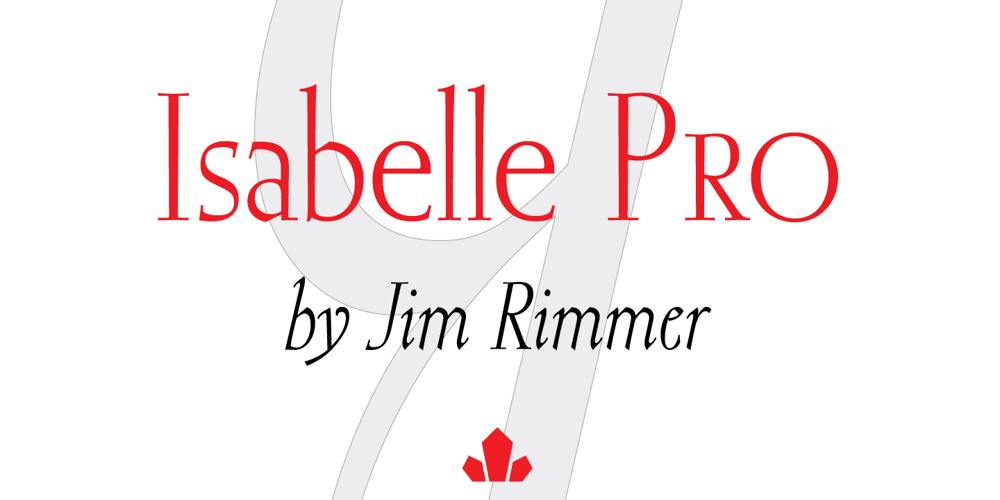
Isabelle Pro Font Family was designed by Jim Rimmer and published by Canada Type. Isabelle Pro contains 2 styles and family package options. Isabelle is the closest thing to a metal type revival Jim Rimmer ever did. The original metal face was designed and cut in late 1930s Germany, but its propspects were cut short by the arrival of the war. This was one of Jim’s favourite faces, most likely because of the refined art deco elements that reminded him of his youthful enthusiasm about everything press-related, and the face’s intricately thought balance between calligraphy and typography. Not to mention one of the most beautiful italics ever made. Jim’s early 2000s digitization included mathematical corrections to the original metal cut, as well as some functional improvements for digital use. In 2013, during the remastering of the entire Rimmer collection, Isabelle underwent a considerable rethinking/expansion and was rechristened Isabelle Pro. The new revisions include small caps, ligatures, seven types of figures, automatic fractions, extended Latin language support, stylistic alternates that include lowercase serif angle options in the roman and looped ascenders/descenders in the italic, and plenty of extra OpenType features like caps-to-small-caps substitution, case-sensitive positioning, ordinals, and extended class-based kerning. Now each of the Isabelle Pro fonts includes over 680 glyphs. 20% of this font’s revenues will be donated to the Canada Type Scholarship Fund, supporting higher typography education in Canada.